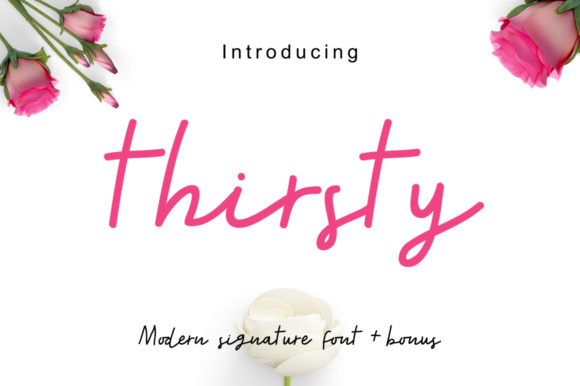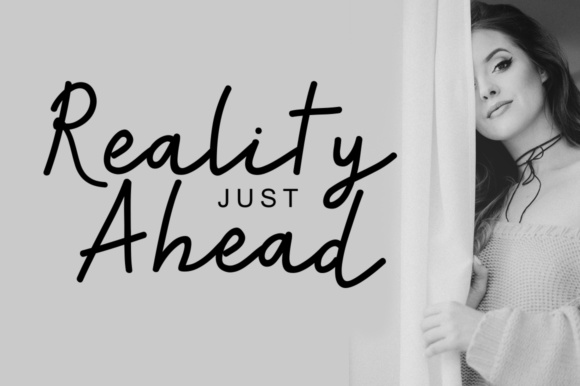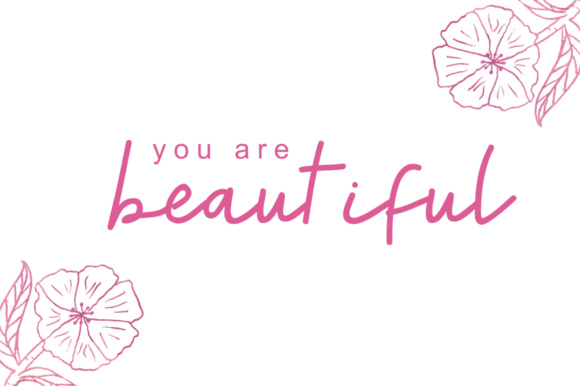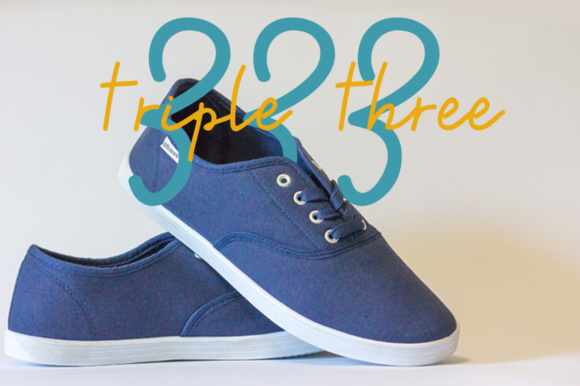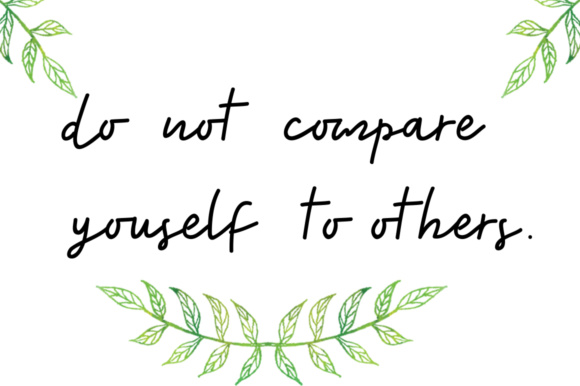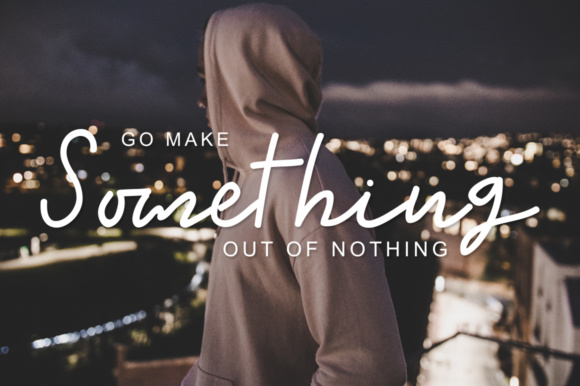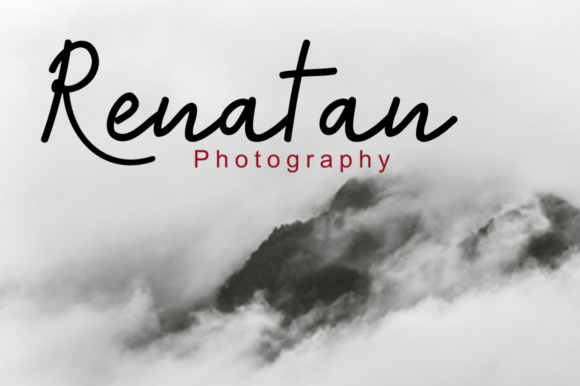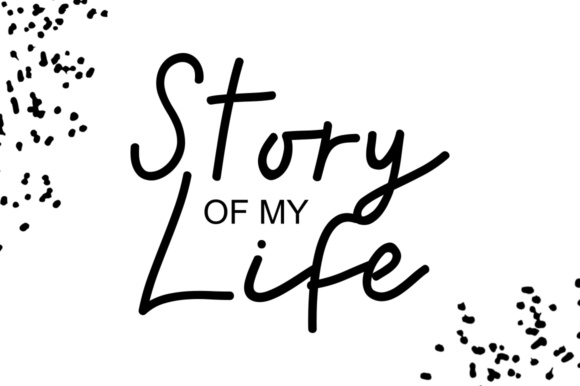
Thirsty Font
About Thirsty Font
Thirsty is a relaxed and fun looking handwritten script font, ideal for use in displays and more. This monoline, casual font is a great way to give your projects an authentic and organic look.